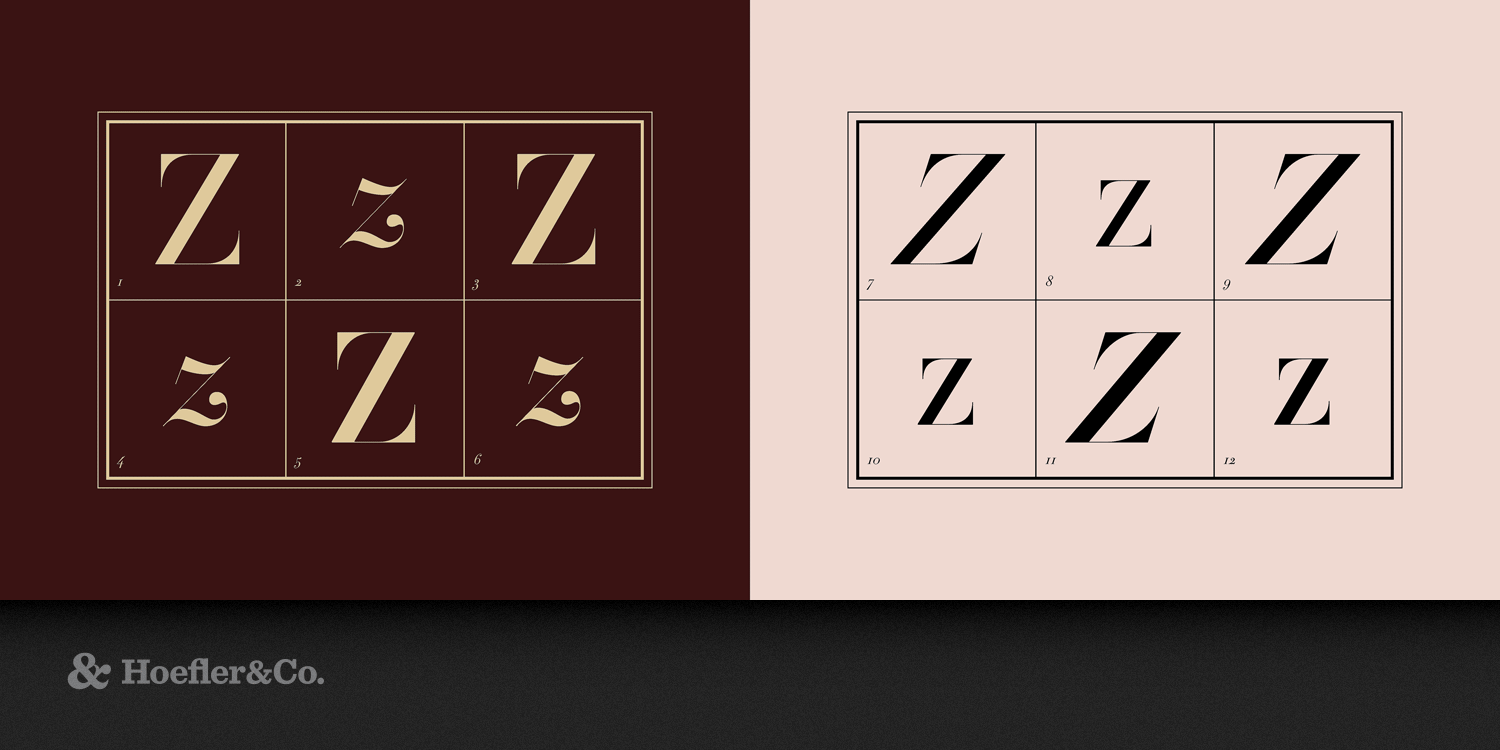
HTF Didot Font is perfect for high-fashion magazine headlines, luxury brand identities, elegant wedding invitations, sophisticated perfume advertising, premium jewelry catalogs, upscale art gallery materials, classical music concert programs, and refined design projects that require aristocratic typography with French elegance character and neoclassical sophistication.
This HTF Didot Font is exciting because it represents the pinnacle of French typographic artistry with dramatically contrasted letterforms that embody the sophistication of the Didot family's printing legacy, featuring razor-sharp serifs and exquisite character construction that conveys aristocratic refinement while maintaining exceptional readability for luxury applications and high-fashion communications.
The HTF Didot Font family includes elegant weights with neoclassical styling, complete character sets with sophisticated uppercase and lowercase letters, refined numerals, graceful punctuation, and luxury symbols that provide comprehensive typography solutions for fashion and luxury design projects requiring authentic French sophistication aesthetics and aristocratic appeal.
Perfect for creating distinguished luxury communications and elegant fashion brand identities, HTF Didot Font Free Download delivers the refined typography that transforms text into powerful expressions of French sophistication and neoclassical excellence. This distinctive typeface honors the legacy of the Didot printing dynasty, making it essential for projects celebrating French elegance, luxury fashion, aristocratic refinement, and any design requiring sophisticated character with authentic neoclassical sophistication and timeless French appeal that captures the essence of Parisian haute couture.